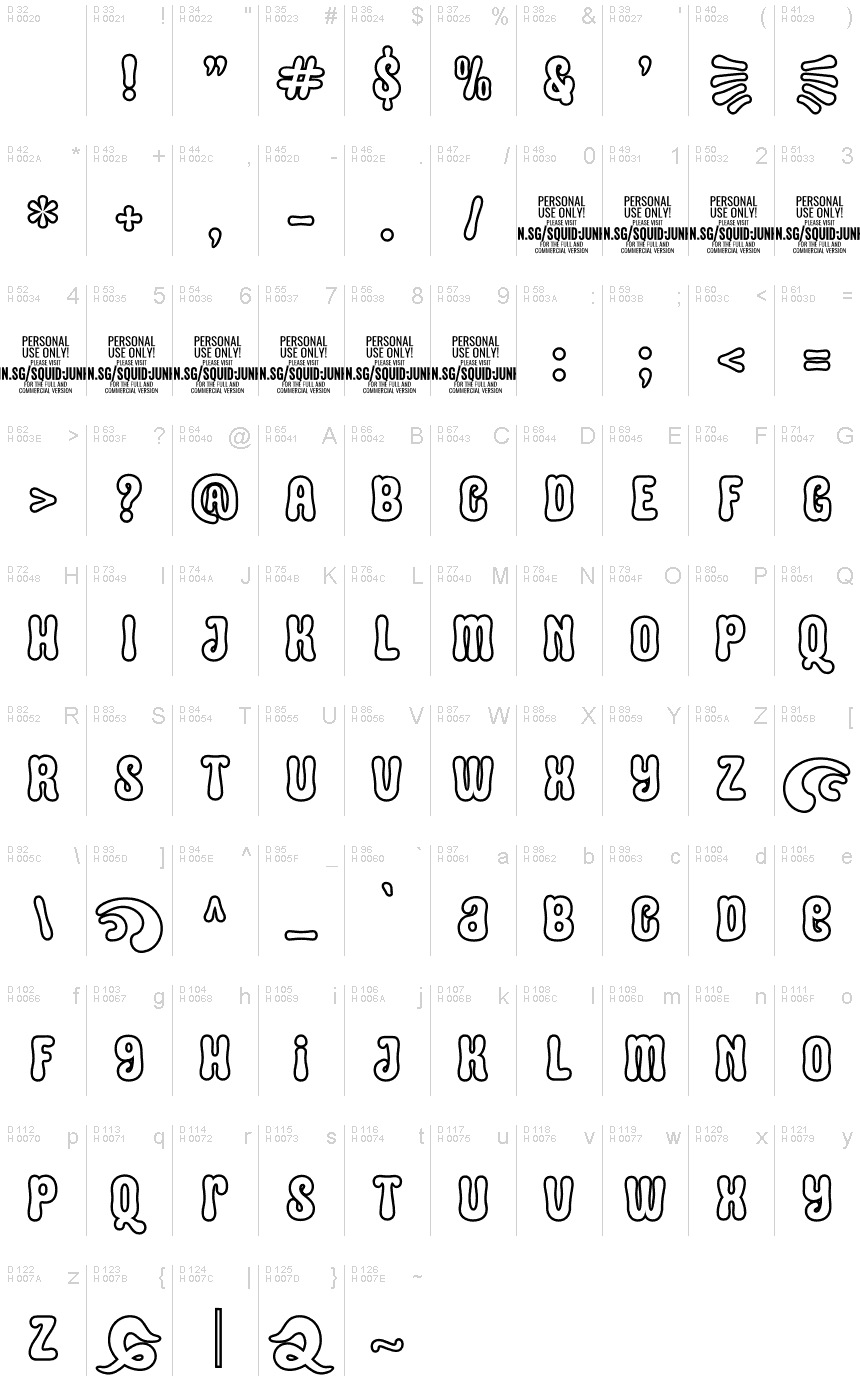
Squid Outline PERSONAL USE Regular
Mans Greback's Squid Junkie Outline is a display font with a groovy, bold style. Perfect for creating attention-grabbing headlines, posters and logos with a unique twist. Use it to inject some personality into your designs!
Use parenthesis symbols ( ) { } [ ] to create tentacles.
Example: [OCTUPUS]